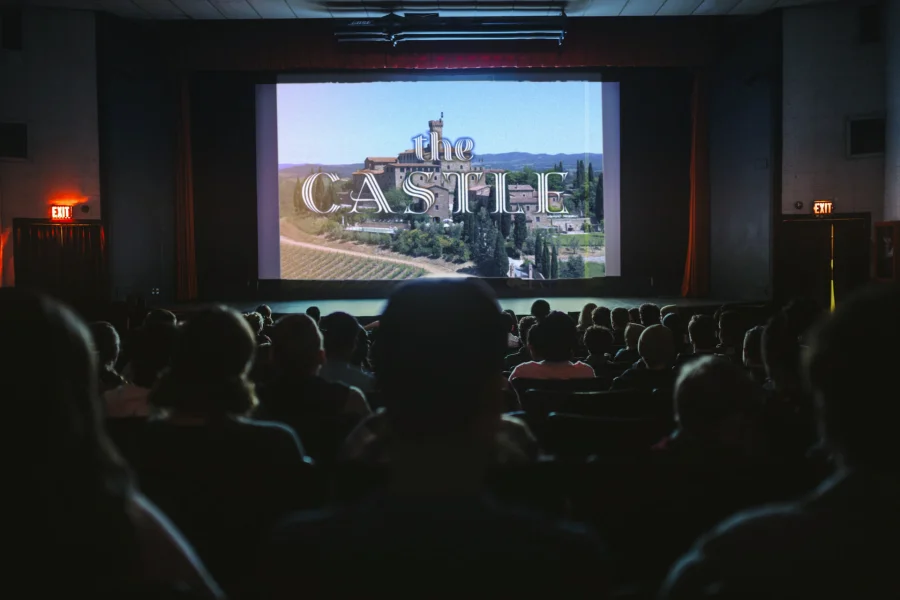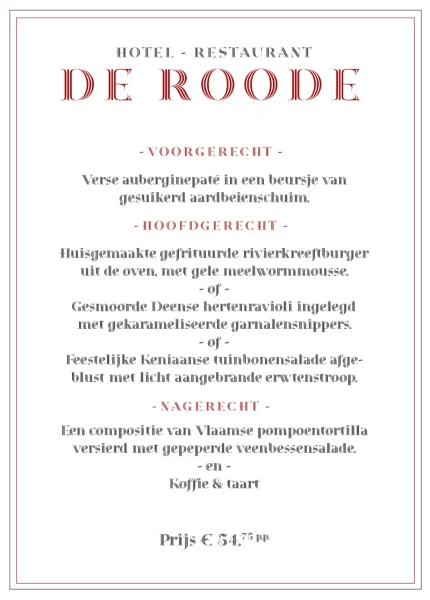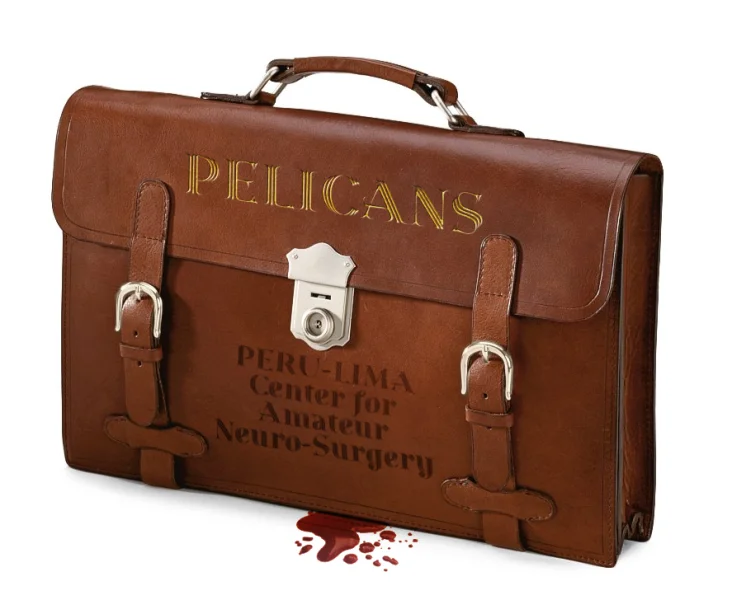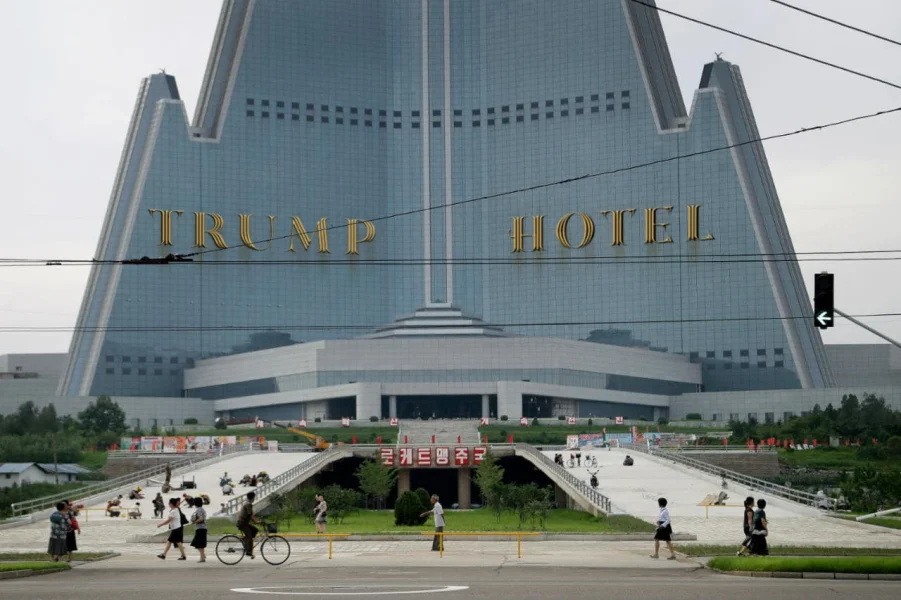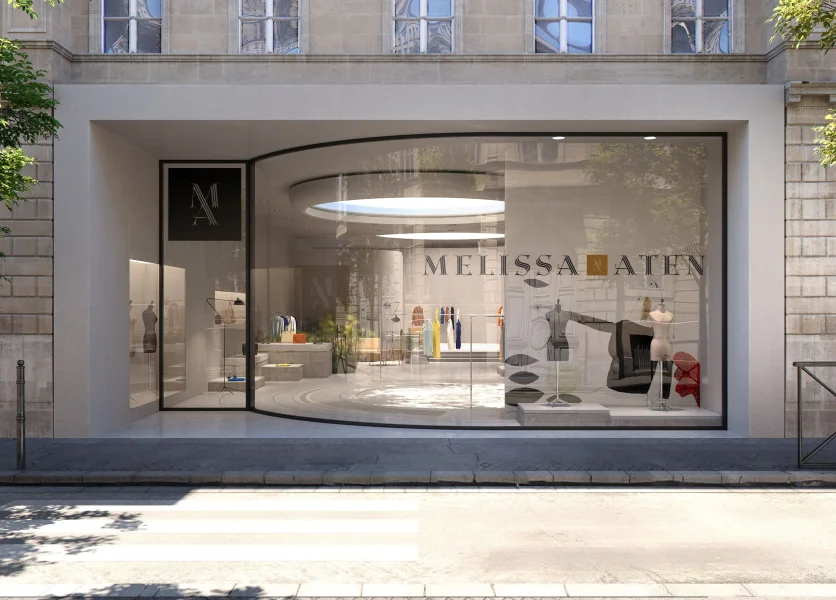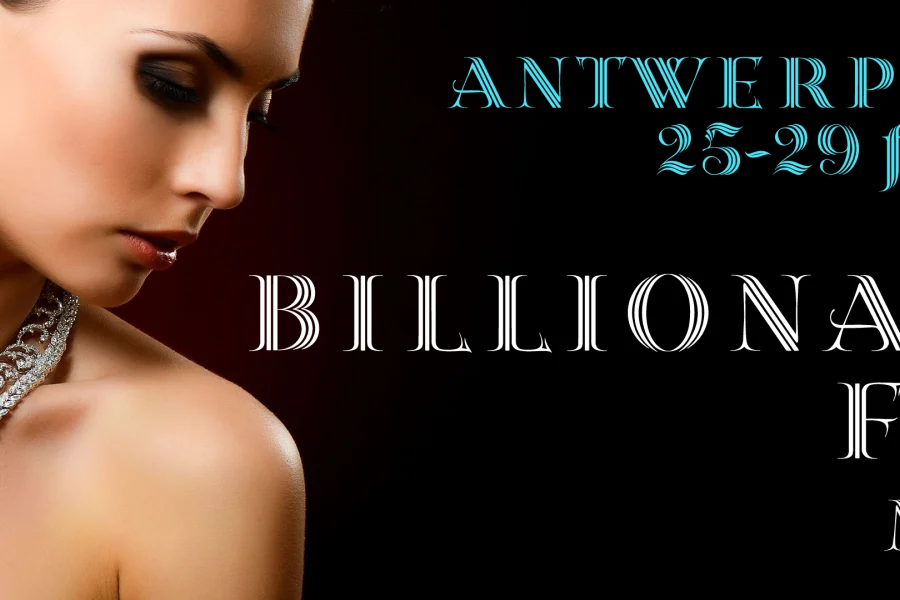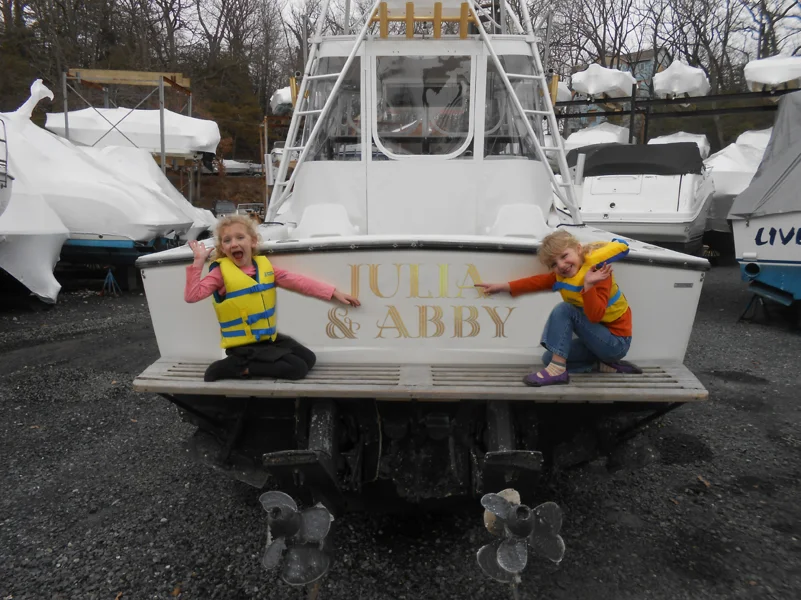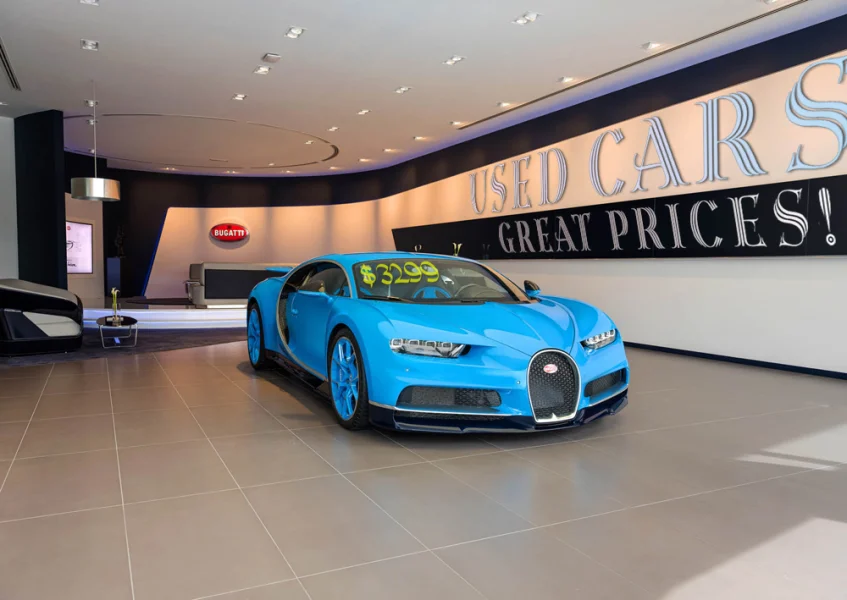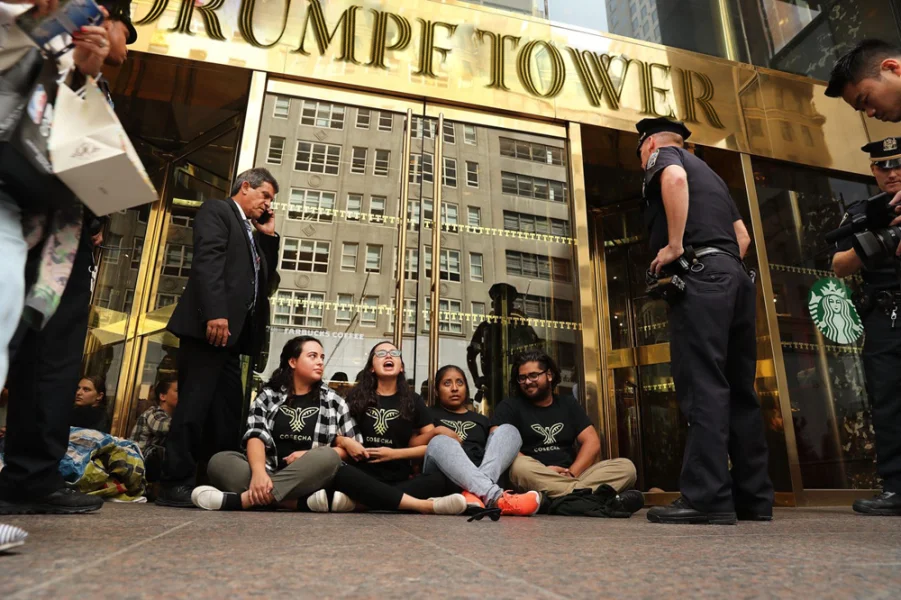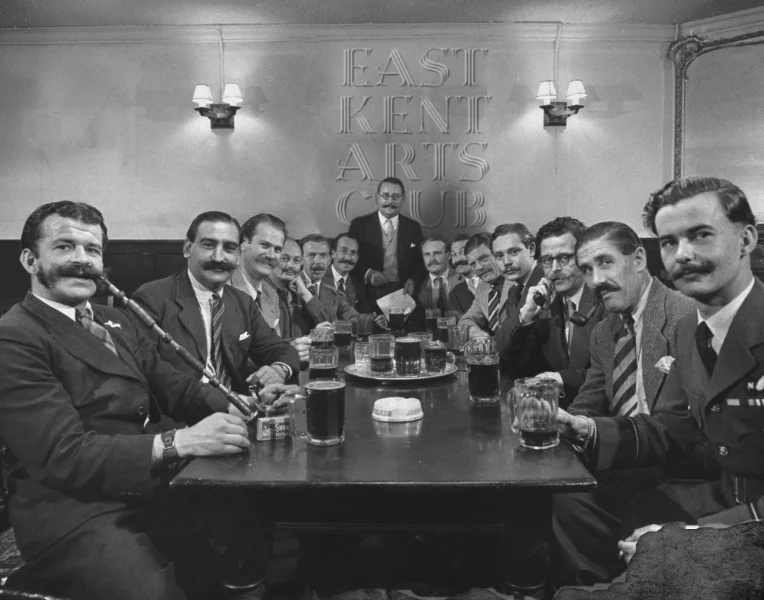
A luxurious. stylish font for a pompous and pretentious impression. I made it so typing all-caps will add extra spacing, for an even more dignified look. ̷I̷f̷ ̷y̷o̷u̷ ̷w̷a̷n̷t̷ ̷t̷o̷ ̷u̷s̷e̷ ̷t̷h̷e̷ ̷f̷o̷n̷t̷ ̷f̷o̷r̷ ̷c̷o̷m̷m̷e̷r̷c̷i̷a̷l̷ ̷p̷u̷r̷p̷o̷s̷e̷s̷,̷ ̷p̷l̷e̷a̷s̷e̷ ̷e̷m̷a̷i̷l̷ ̷m̷e̷ ̷a̷t̷ ̷t̷u̷p̷w̷a̷n̷d̷e̷r̷s̷@̷t̷u̷p̷w̷a̷n̷d̷e̷r̷s̷.̷n̷l̷[ ☚ - never mind; commercial use is fine as well. I'm too lazy to set up a shop :)